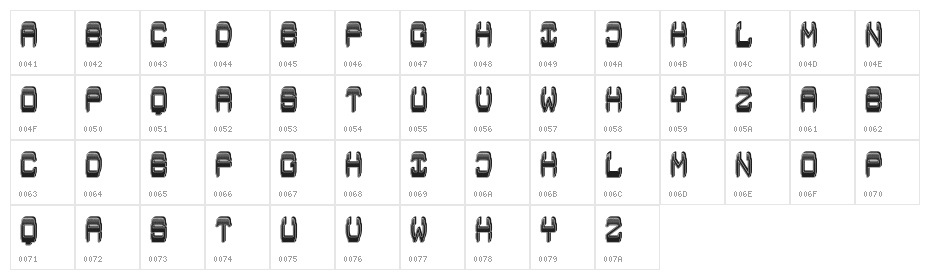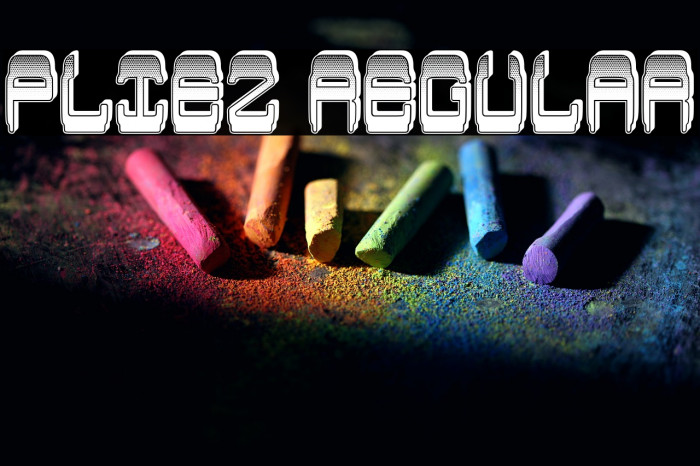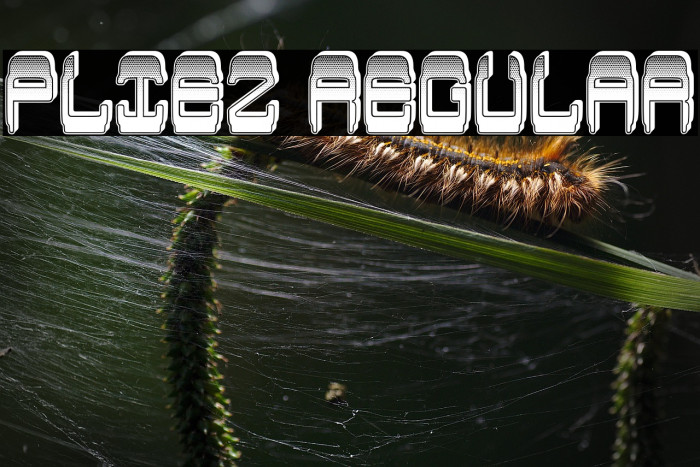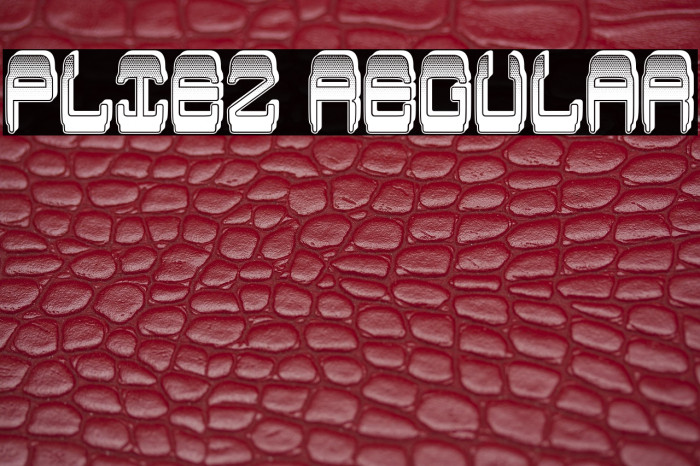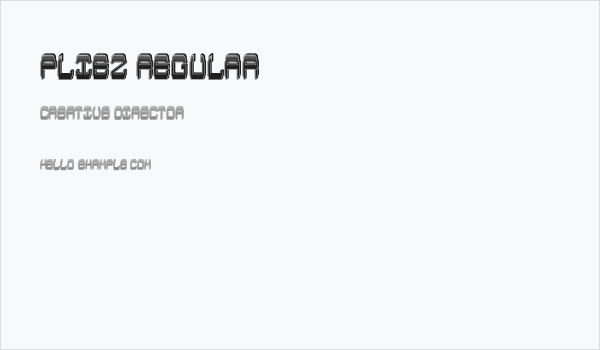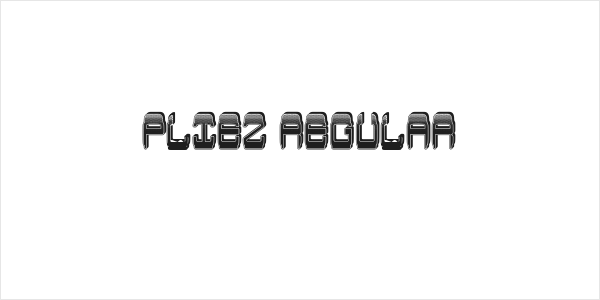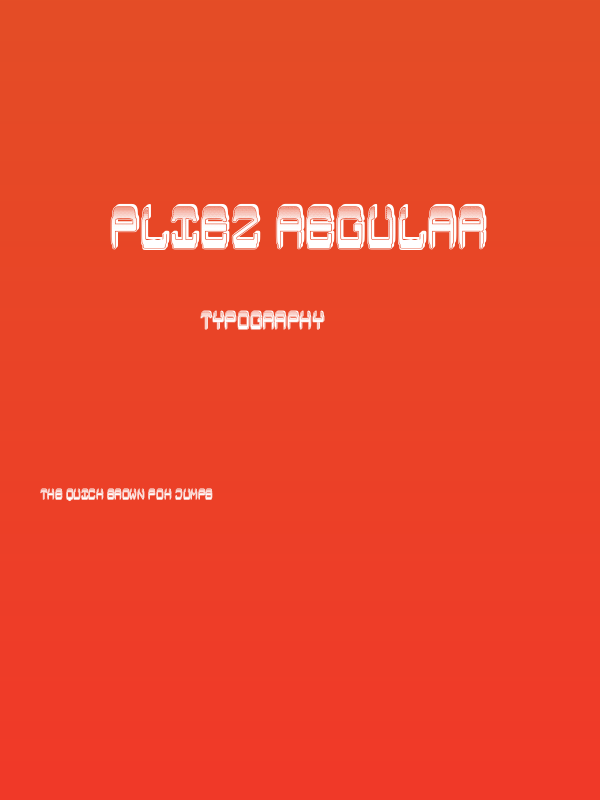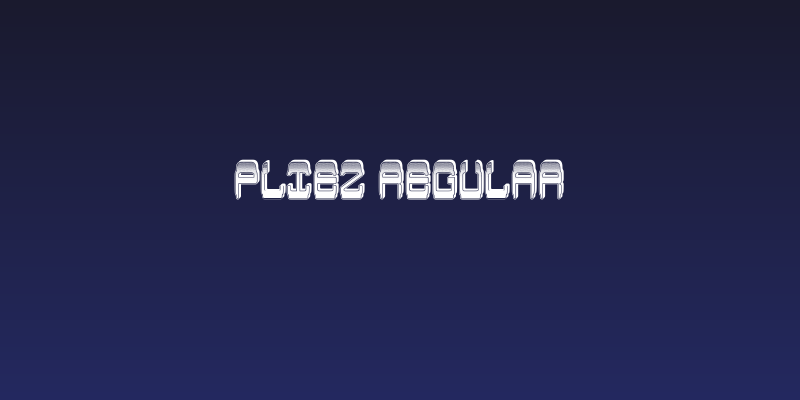
Pliez Regular Font
Pliez Regular Description
This font exhibits a bold and futuristic design with a distinct three-dimensional effect. The characters are structured with a thick outline and a dotted texture that gives a sense of depth and dimension. The uppercase letters are uniform in height, with a geometric and angular style that conveys a modern and tech-inspired aesthetic. The font's unique appearance makes it stand out, with each letter having a consistent width and a slightly condensed form. The overall design is eye-catching and suitable for projects that require a strong visual impact.